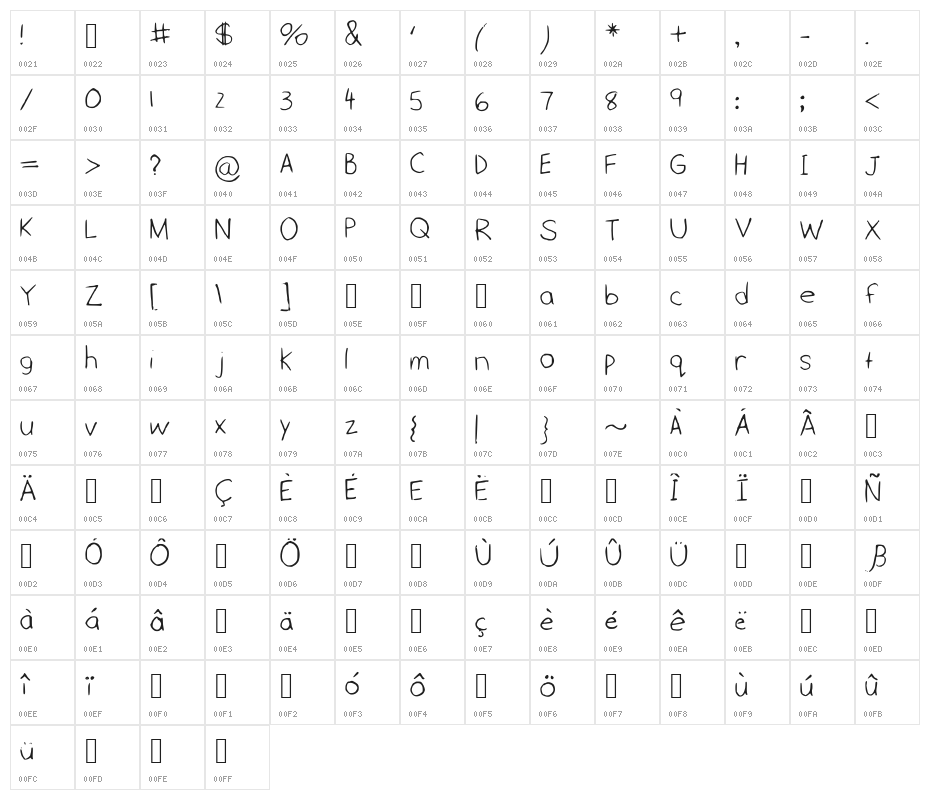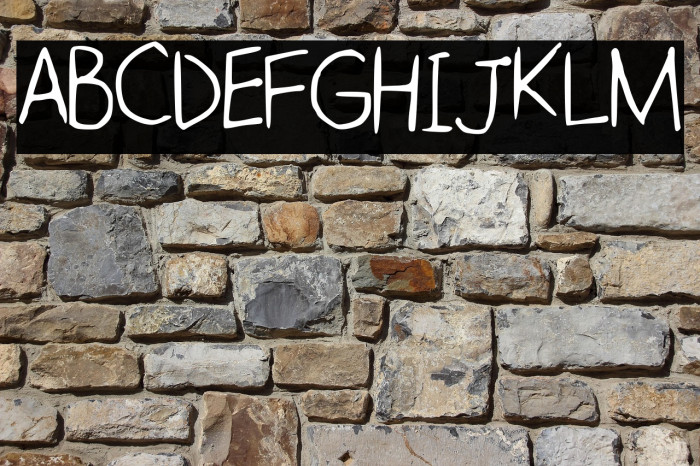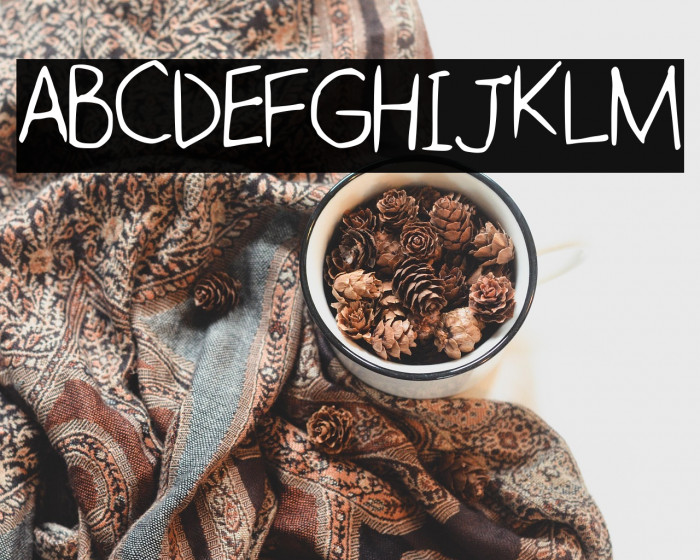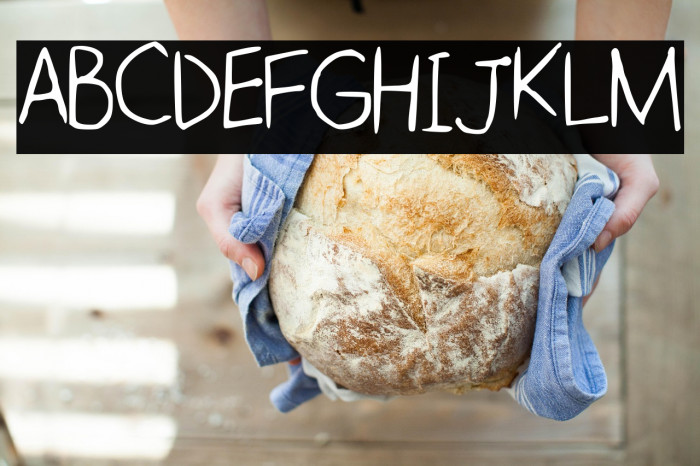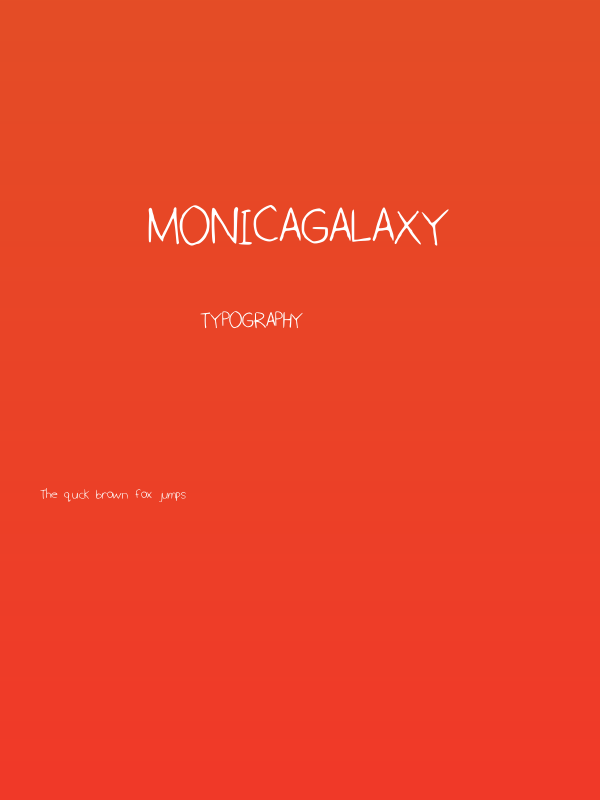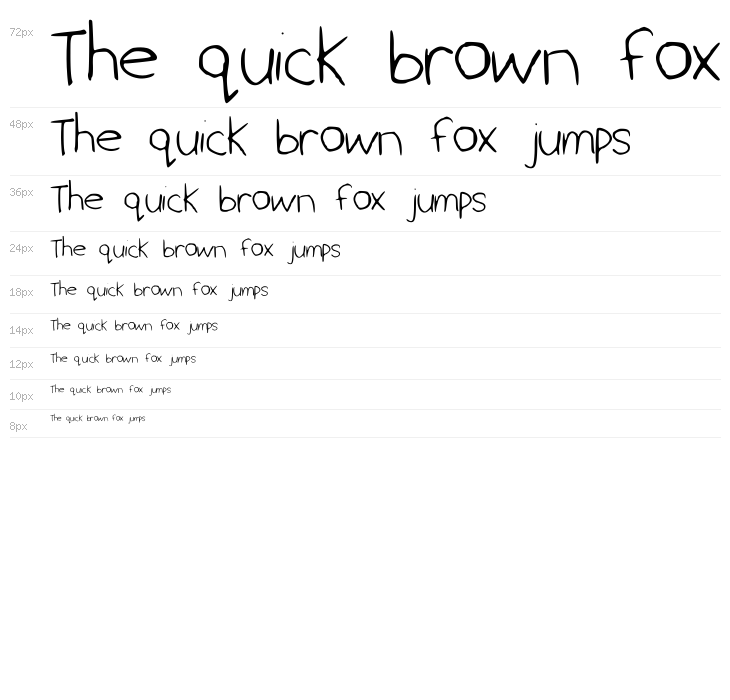
MonicaGalaxy Font
MonicaGalaxy Description
This font features a playful and informal handwritten style, characterized by its irregular strokes and casual appearance. The letters have a natural flow, with slight variations in height and angle, giving it a personal and approachable feel. The uppercase and lowercase letters maintain a consistent style, while the numerals and special characters blend seamlessly with the overall design. This font is ideal for projects that require a touch of whimsy and creativity, such as children's books, greeting cards, and informal branding.
| Proposed Projects | Children's books, greeting cards, informal branding, personal blogs, and creative projects. |